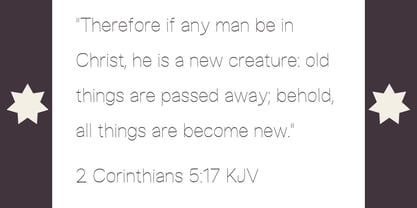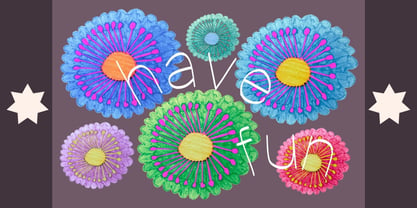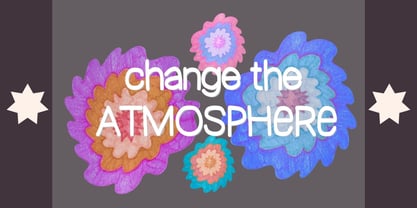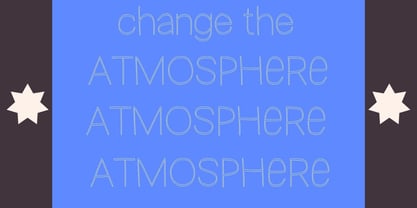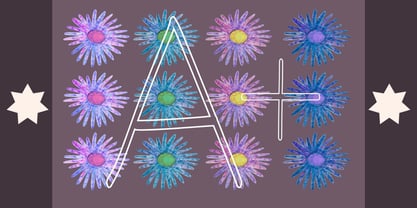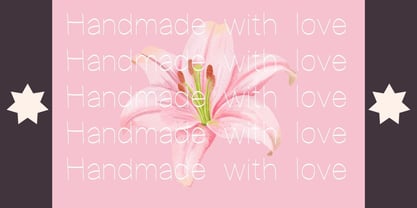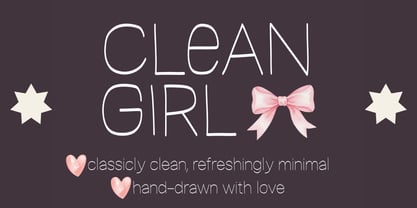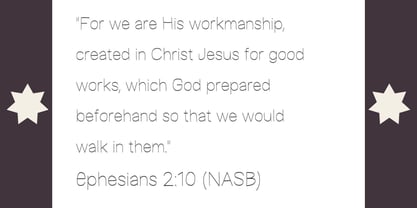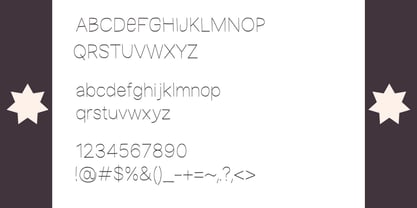
Clean Girl
by Eryn Rose Design
The Clean Girl Font Family was designed by Eryn Rose Tomlinson and published by Eryn Rose Design. Clean Girl contains 1 styles. More about this family
Clean Girl is a minimal hand-drawn sans font that beautifully combines classic elegance with the warmth of human imperfections. This font stands out as a clean, timeless choice for various design projects. Its modern and youthful energy makes it a perfect fit for branding, packaging, and UI design. Whether you're working on stationery design, logo creation, product labels, or enhancing your personal website, Clean Girl is the ideal choice to elevate your creative endeavors.
Eryn Rose, a graduate of the Rhode Island School of Design, is a multifaceted artist specializing in illustration, graphic design, and type design. She skillfully blends modern and classic typography, leveraging her fine art and design expertise. Each piece of her typography is unique, ensuring that it cannot be replicated or found elsewhere. Eryn's typography is artfully crafted, infusing warmth into her designs that only a human touch can provide. Her work resonates across various industries, including editorial, tech, and retail, setting her apart in the competitive market with her signature style and design philosophy.